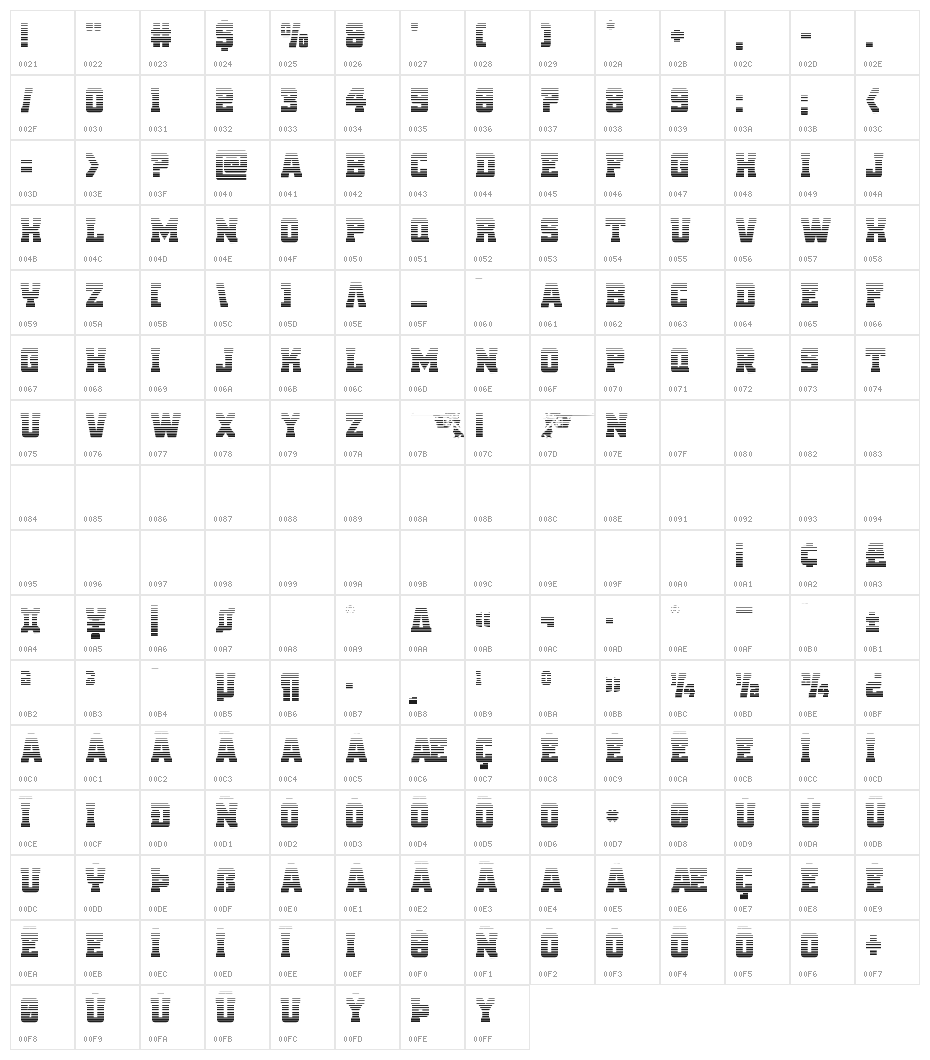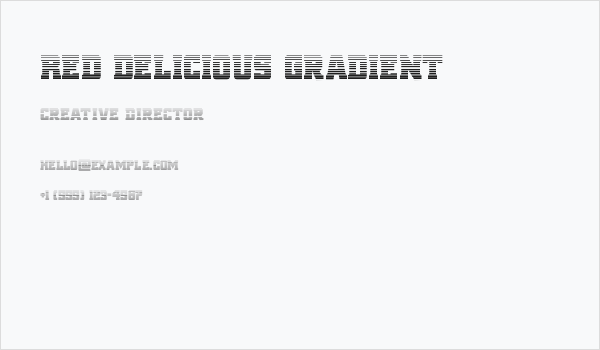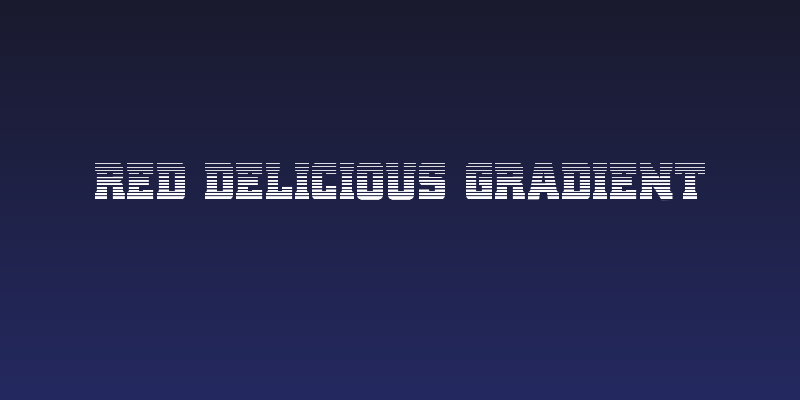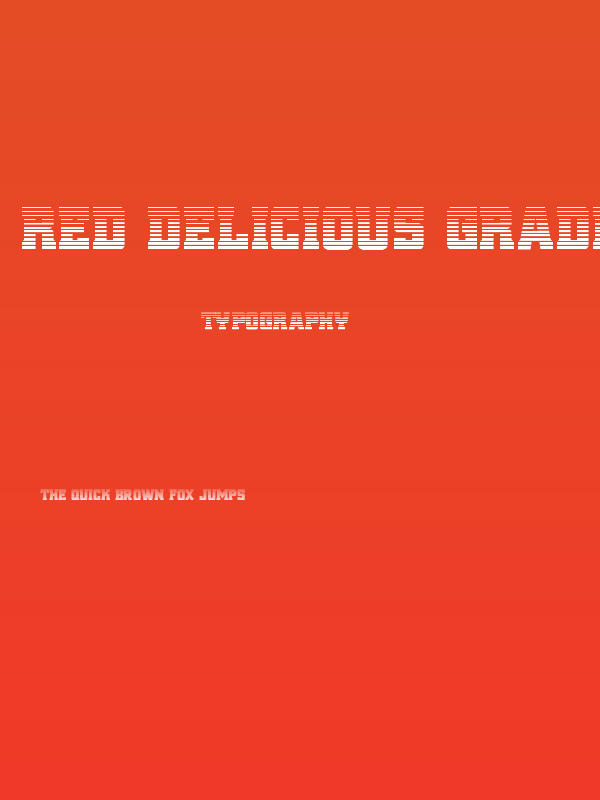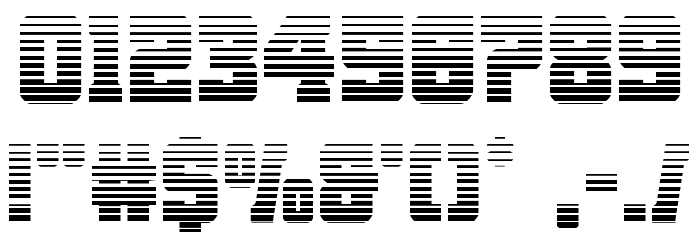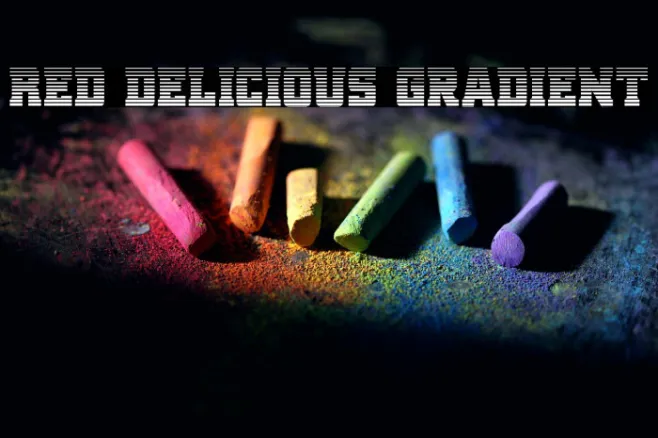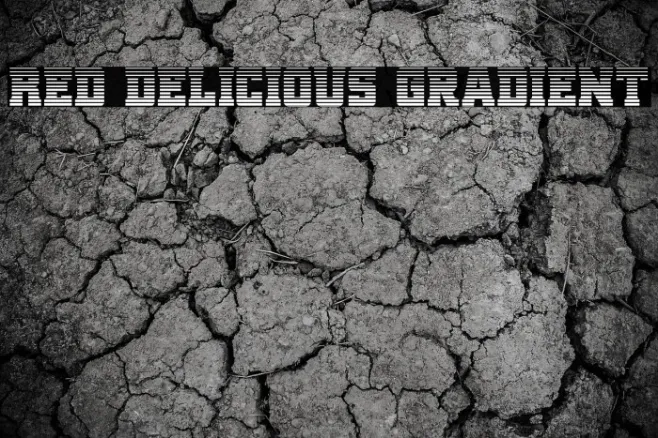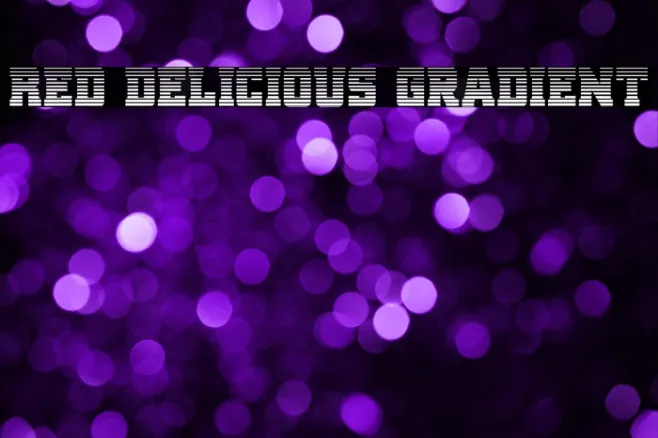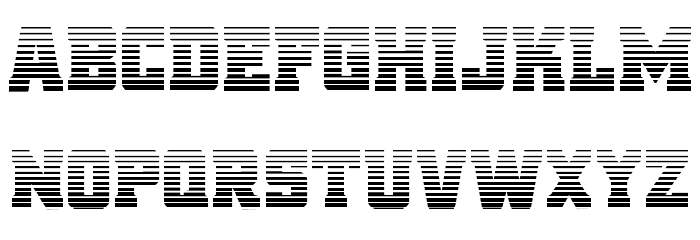
Red Delicious Gradient Font
Red Delicious Gradient Description
This font features a bold, modern design with a unique striped pattern running horizontally across each character. The uppercase and lowercase letters, as well as numbers and special characters, are all designed with this distinctive style, giving the font a dynamic and eye-catching appearance. The geometric shapes and consistent line thickness contribute to its contemporary look, making it suitable for projects that require a strong visual impact. The spacing between characters is normal, ensuring readability while maintaining its decorative appeal.